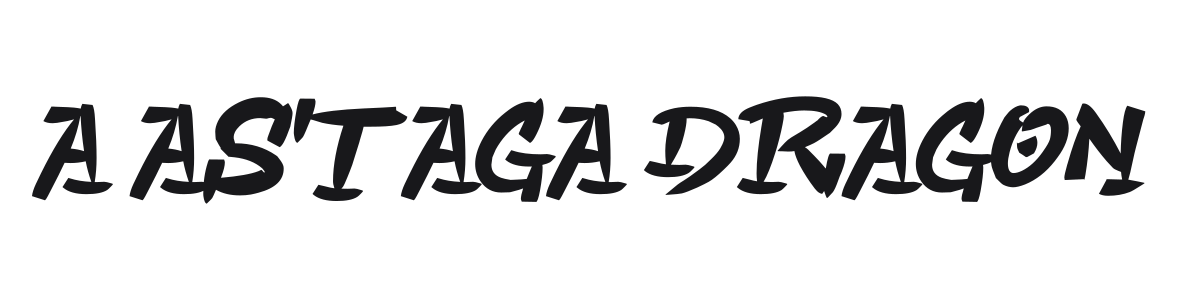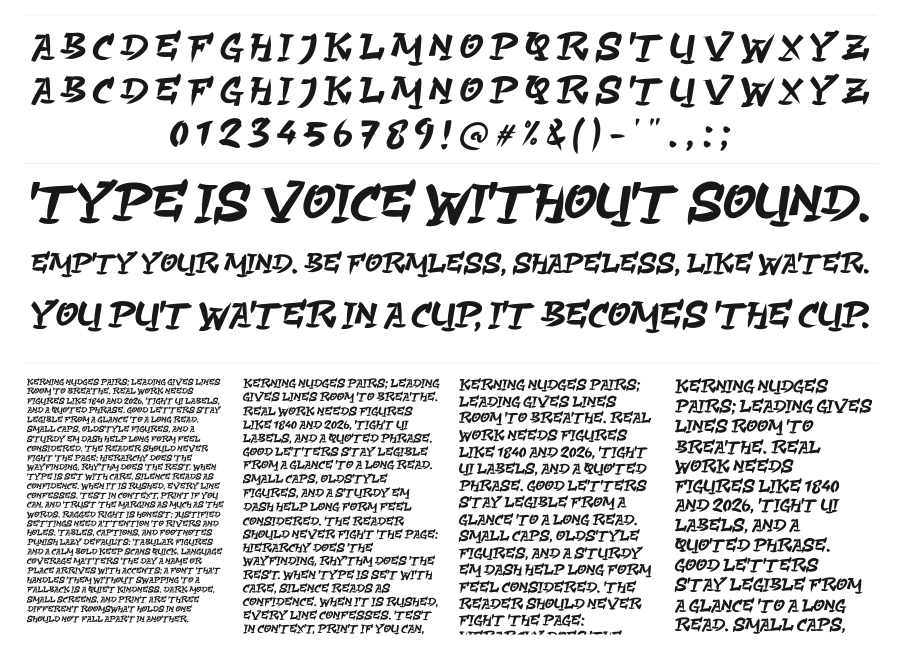
A Astaga Dragon
A Astaga Dragon is a heavy italic display font with a raw, hand-painted character that reads somewhere between comic book lettering and East Asian brush calligraphy. Thick stems crash into sharp thin strokes with irregular ink texture throughout. Best used large, where its energy and rough confidence can hit without apology.